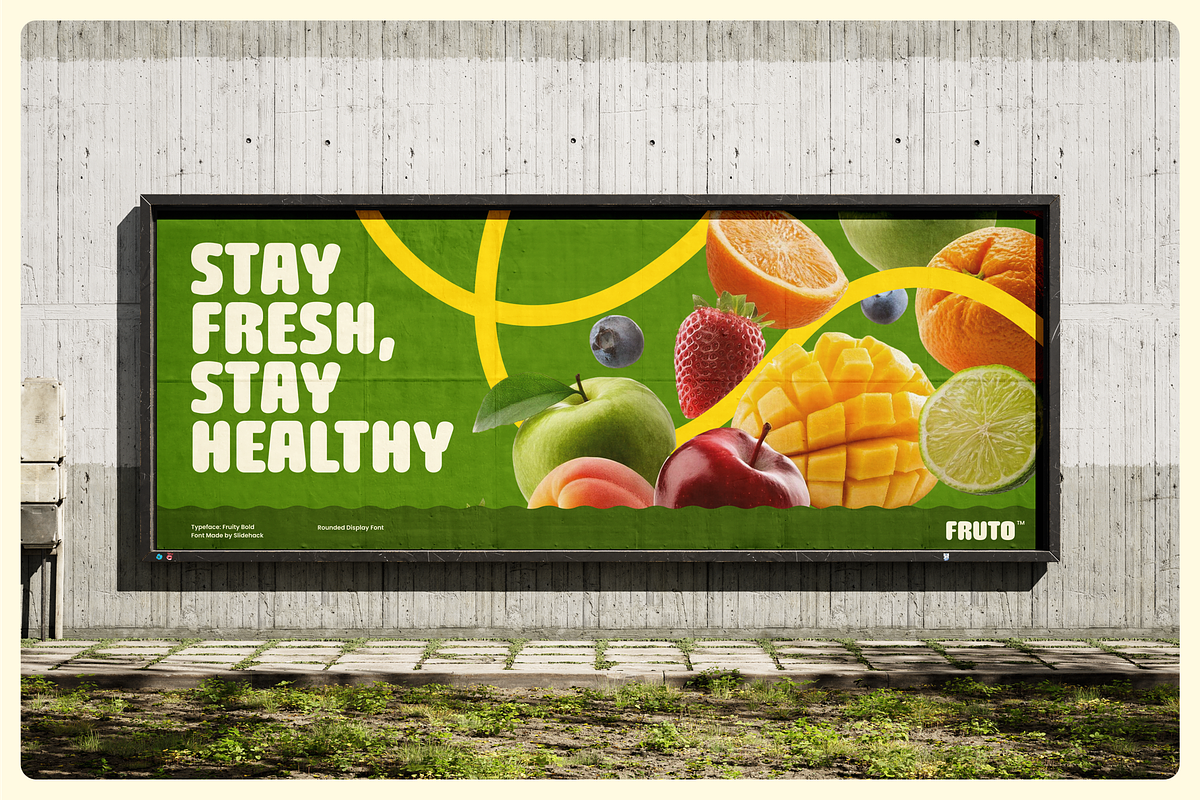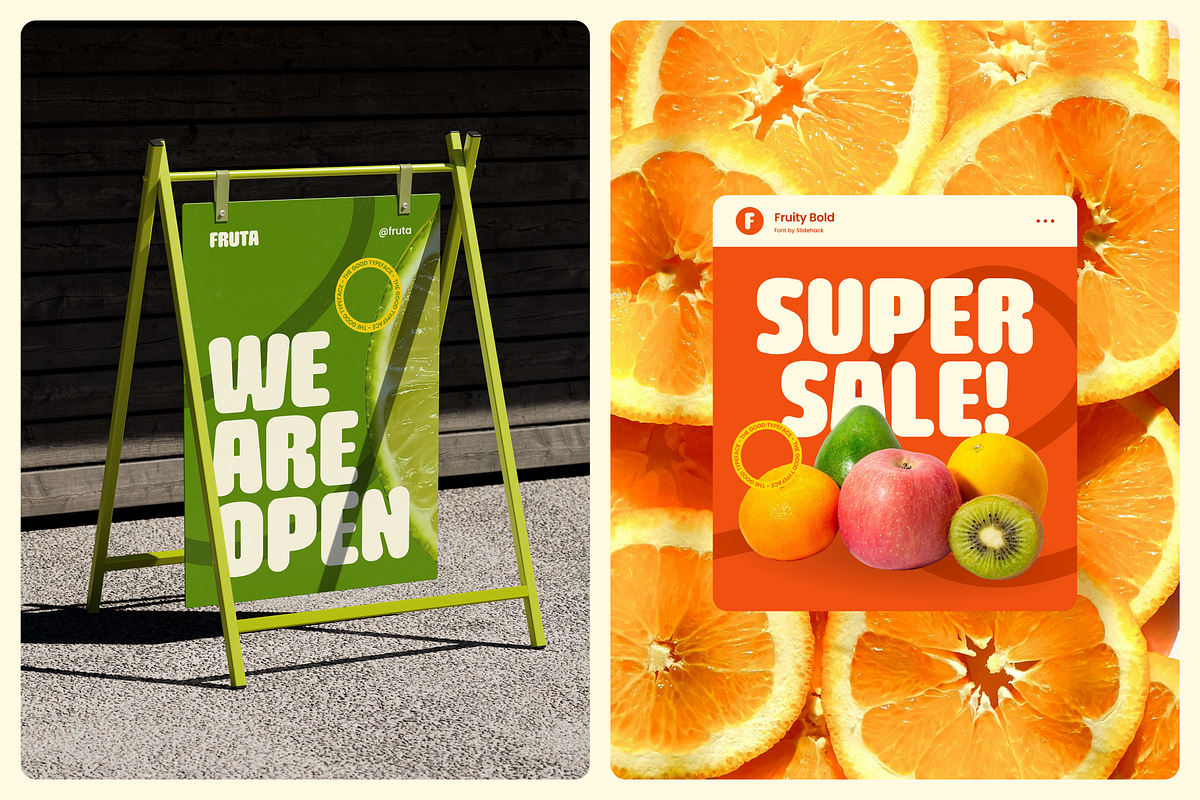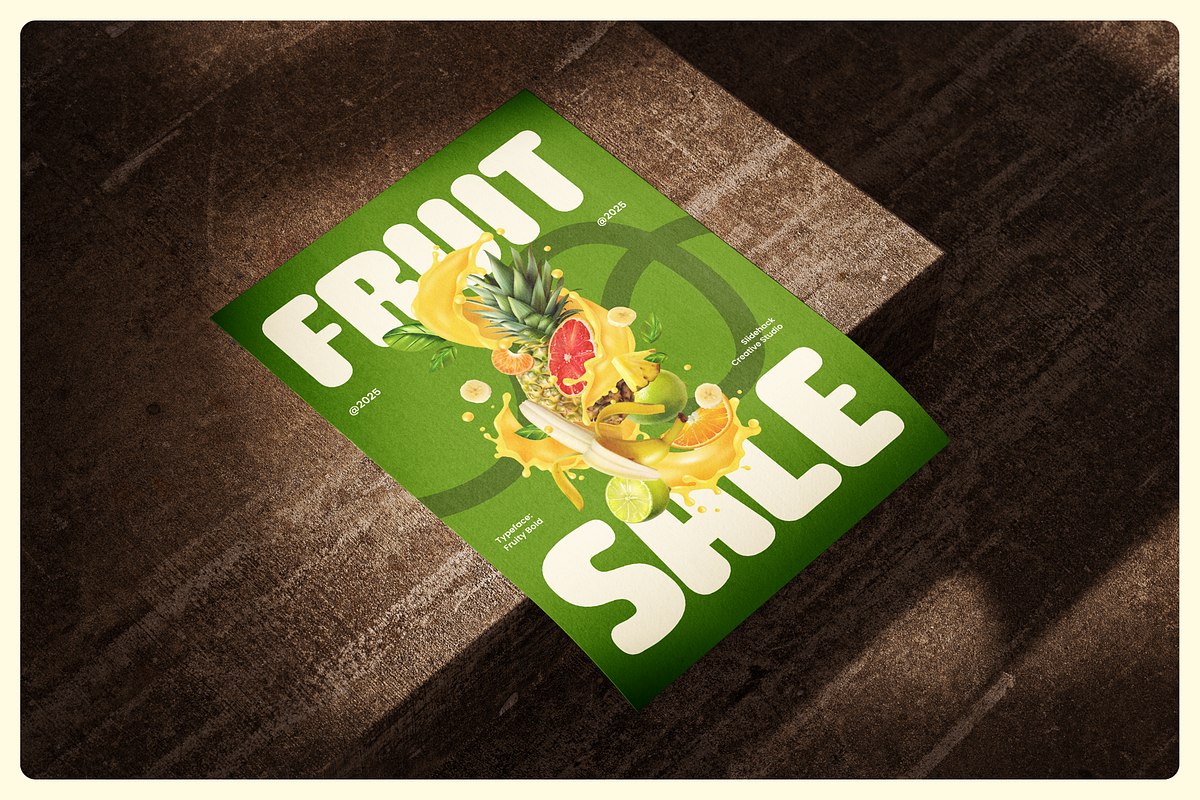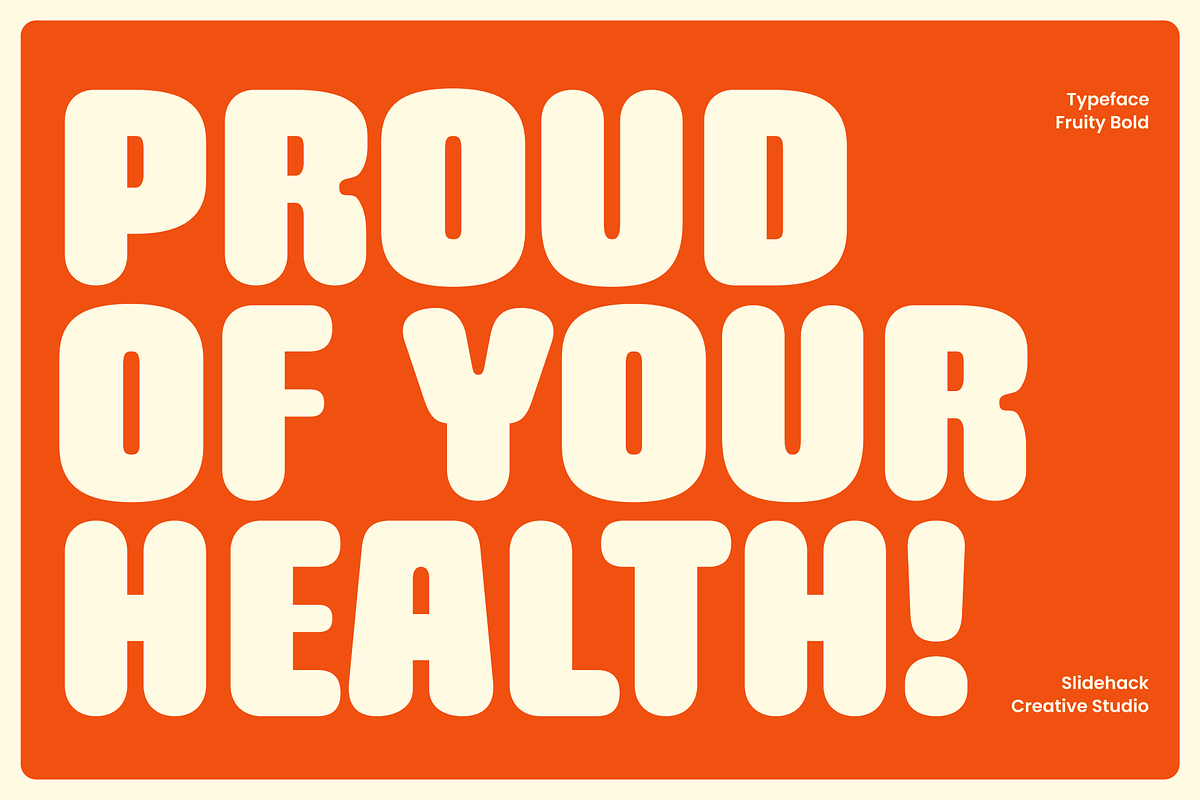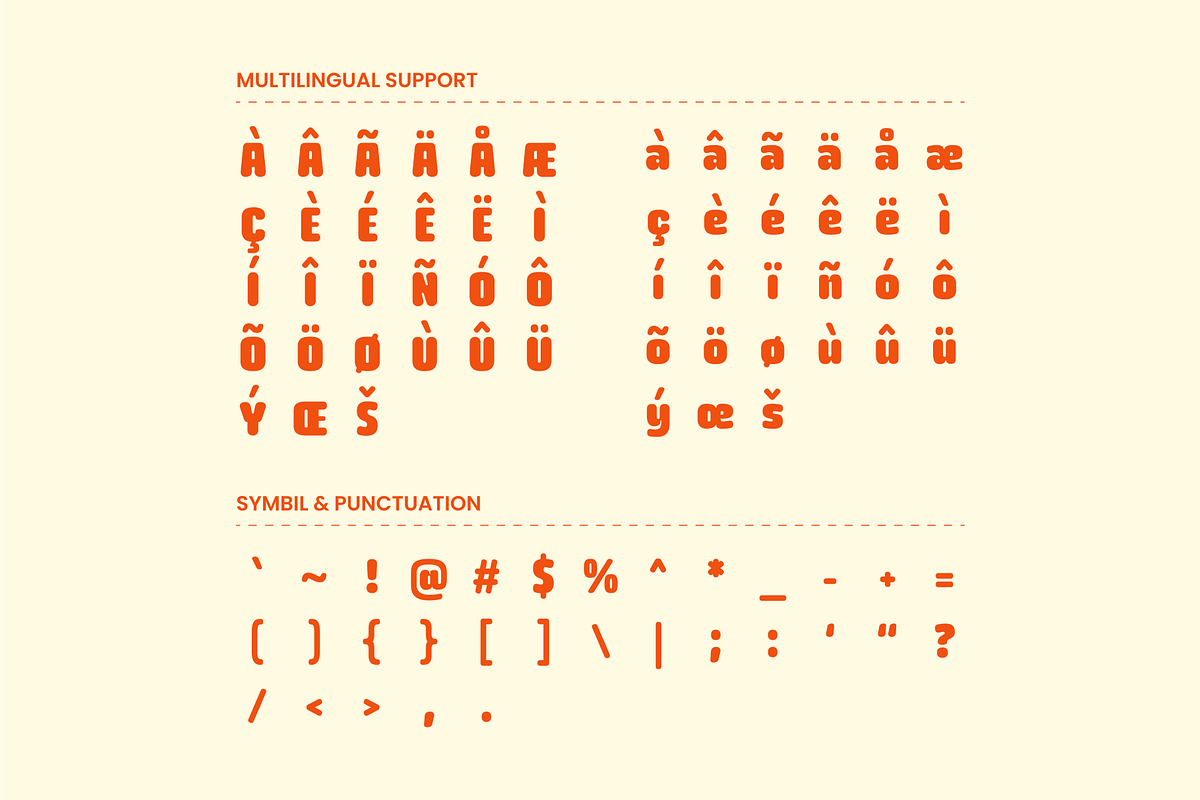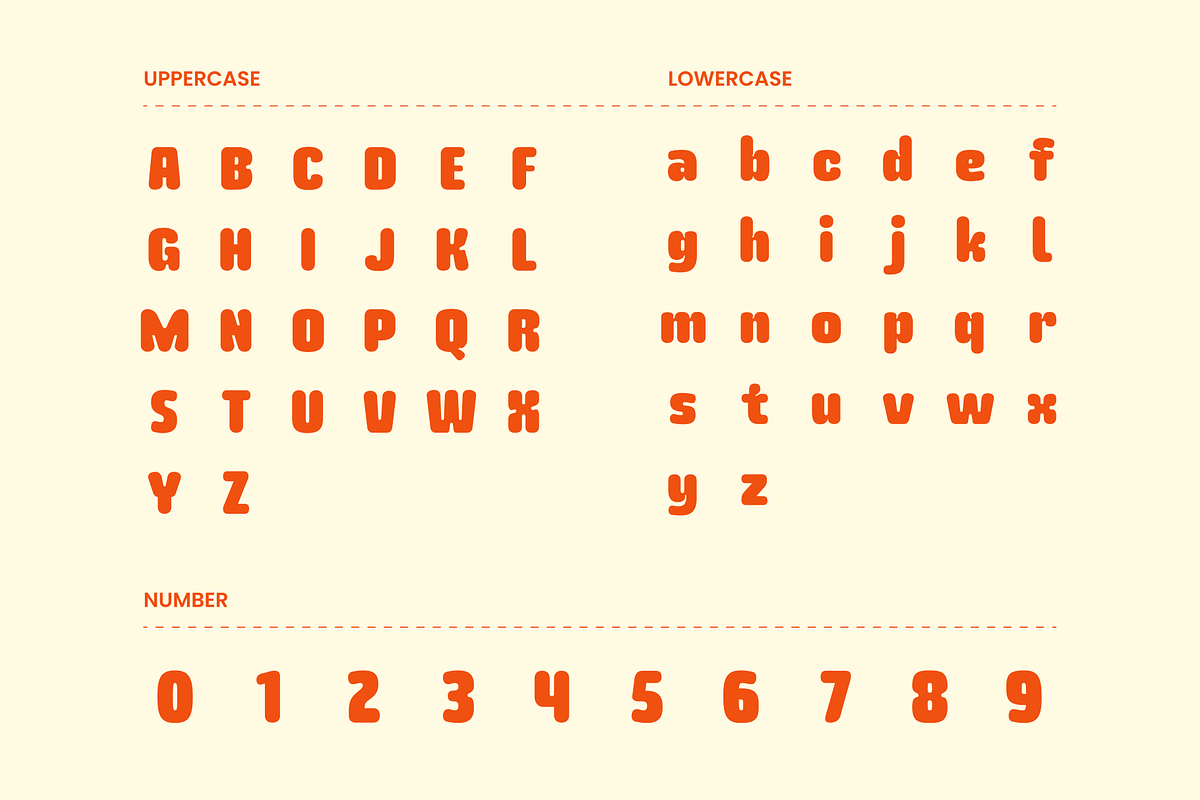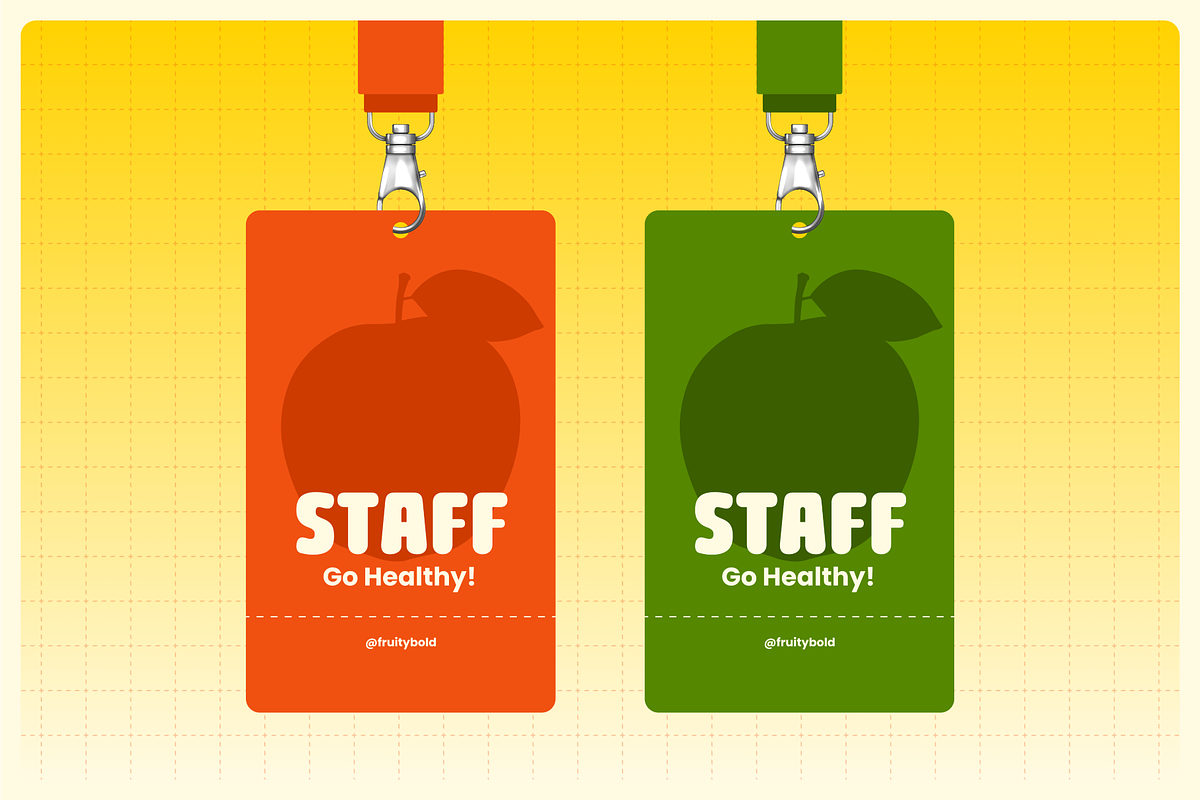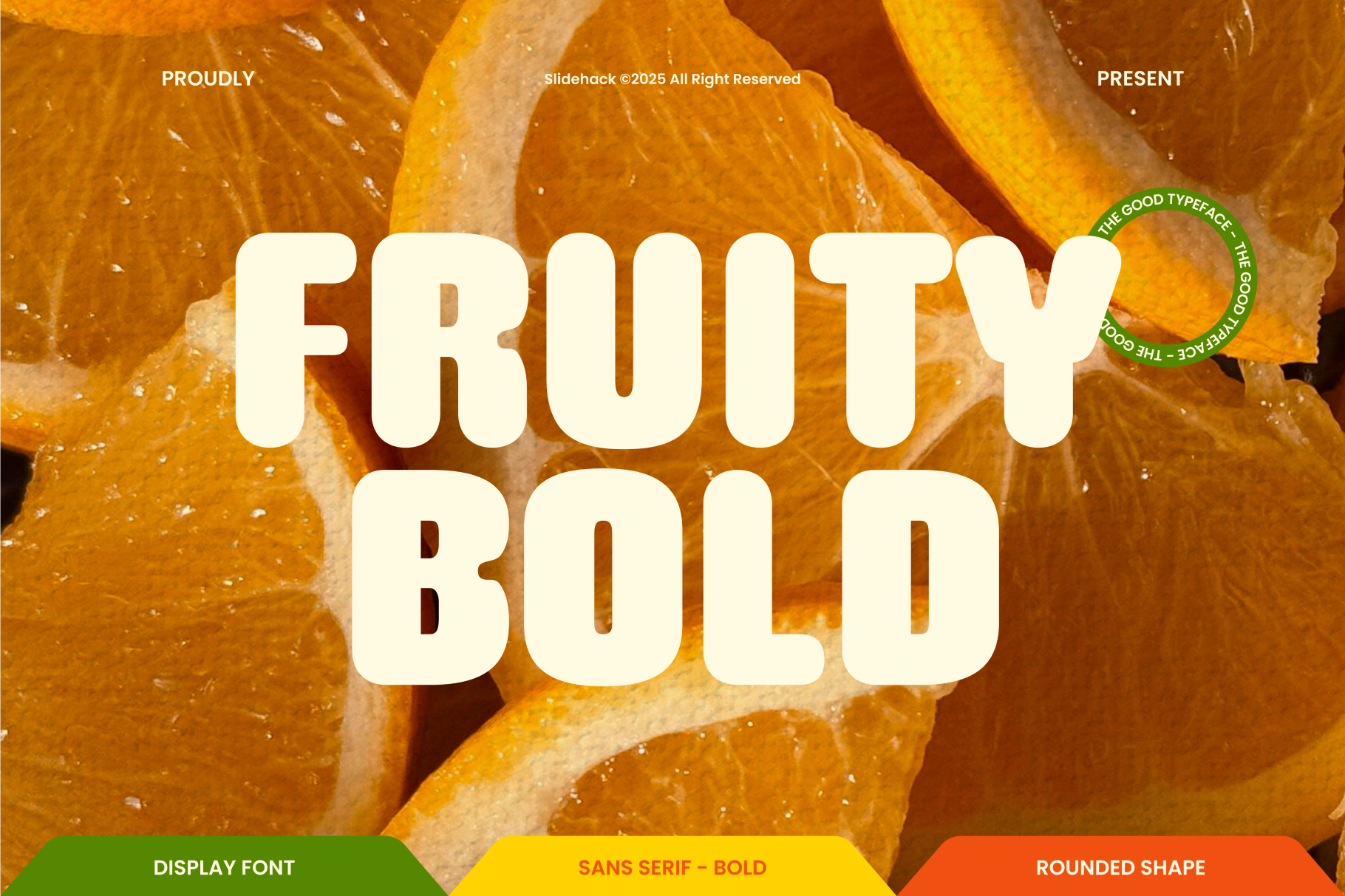
Fruity Bold - Bold Display Font
Fruity Bold is a juicy, extra-thick display font packed with playful energy. Its bubbly, rounded forms and super-heavy weight are perfect for creating sweet, eye-catching logos, vibrant packaging, lively social media graphics, and any design that needs a dose of fun, friendly, and delicious typography.